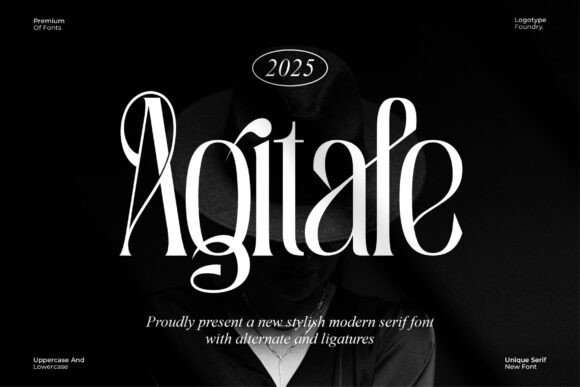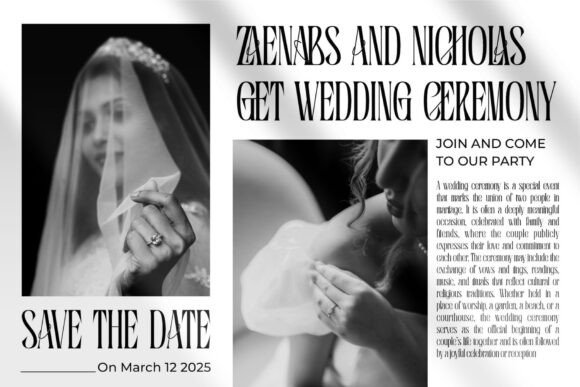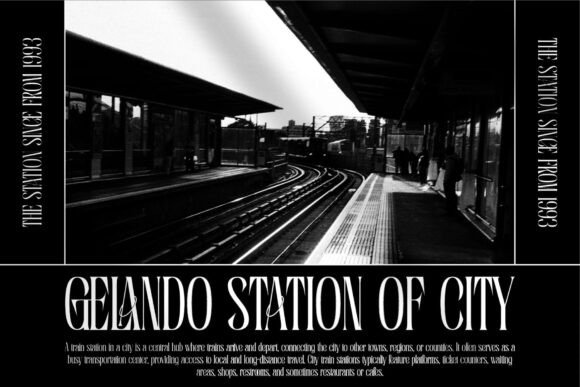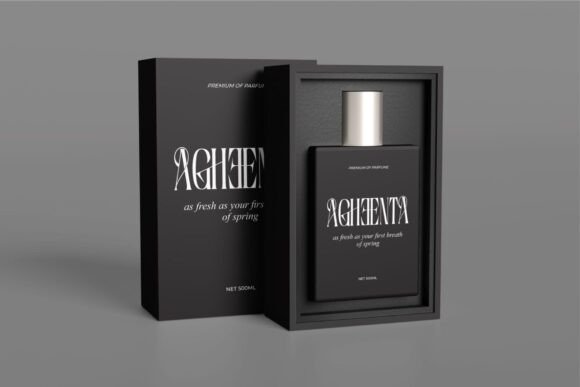
Agitafe Font: Elegant Serif for Wedding Designs & Modern Typography
About the Agitafe Font
Meet Agitafe Font, a stunning font that brings a touch of elegance and professionalism to any design. Agitale is a graceful serif font that blends traditional elegance with a modern attitude. Featuring high-contrast strokes, fluid alternates, and sophisticated ligatures, it’s perfect for elegant branding, logos, fashion layouts, and wedding designs.
Agitafe Font Usage Examples
Agitafe Font Example